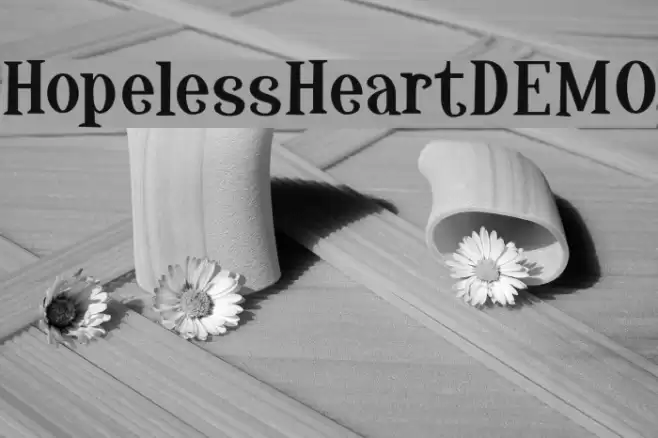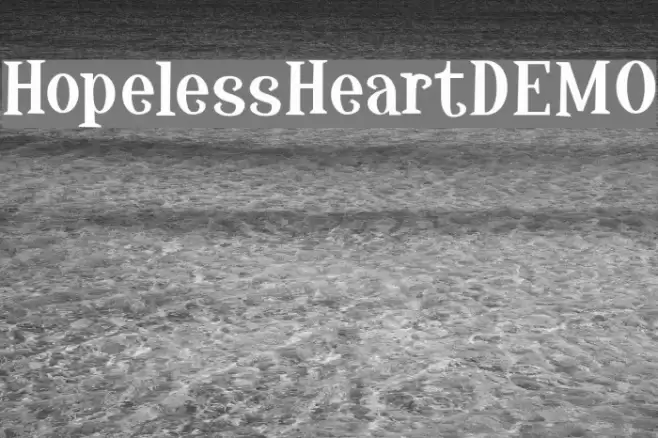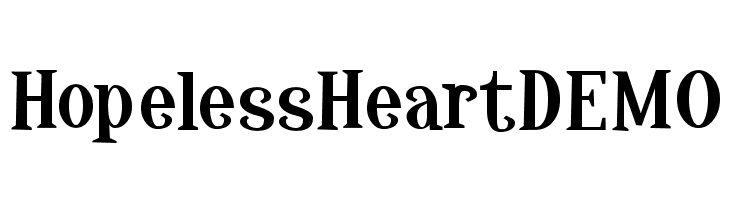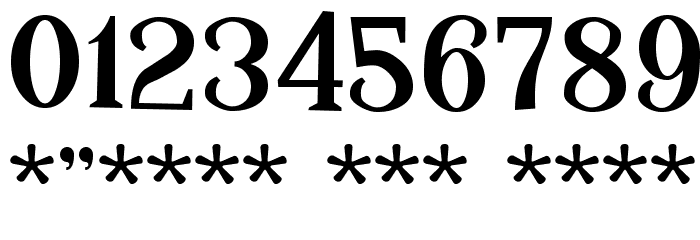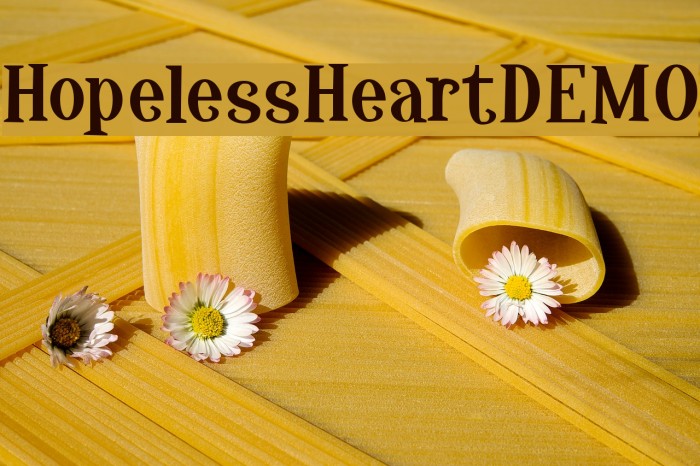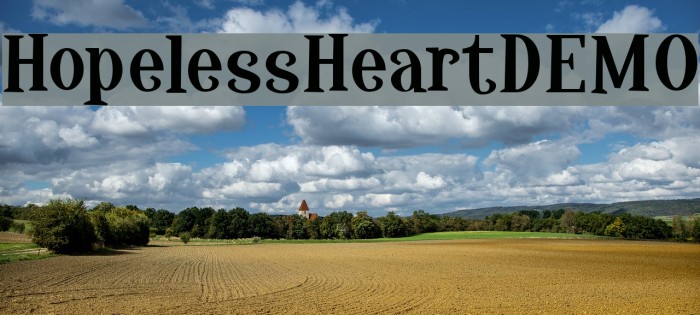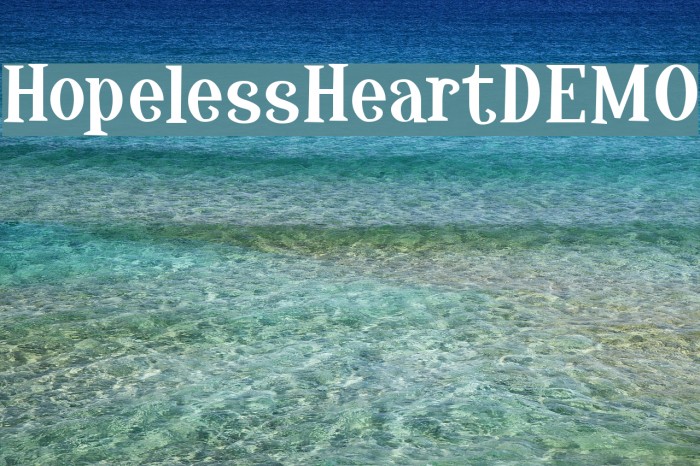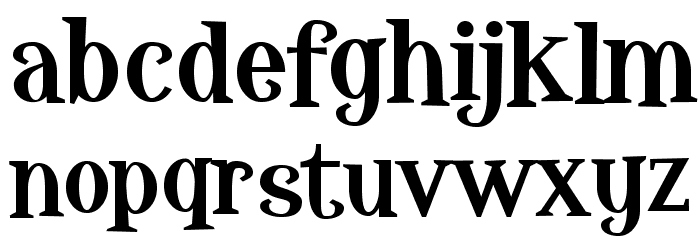
HopelessHeartDEMO Font
HopelessHeartDEMO Description
This font features a bold and expressive style, characterized by its thick strokes and playful curves. The uppercase letters exhibit a strong presence with slightly exaggerated serifs, giving them a distinctive and memorable look. The lowercase letters maintain a consistent flow, with rounded forms that add a touch of whimsy. Numbers are bold and clear, ensuring readability. The special characters complement the overall design, maintaining the same boldness and style. This font's unique character makes it suitable for creative and artistic projects.
A bold, expressive serif font with playful curves and strong presence from Cartoon fonts.
- Proposed Projects: Ideal for branding, posters, headlines, and artistic projects that require a bold and memorable typeface.